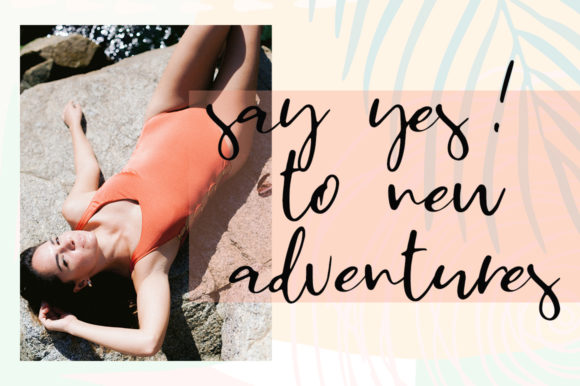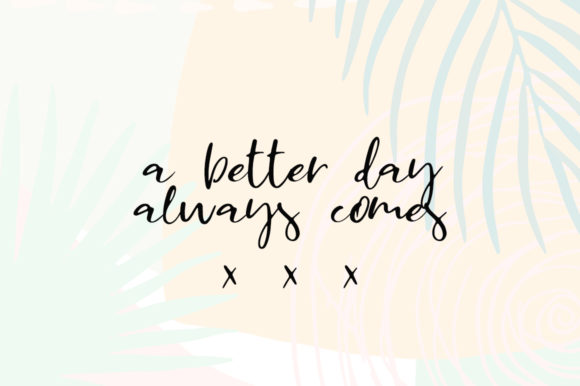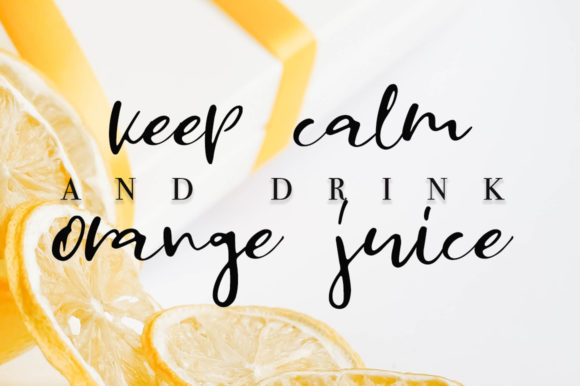
Introduction to Panamera Font
You know that moment when you’re brainstorming ideas for a new design project, and everything just clicks? The colors, the fonts, the overall aesthetic – it all comes together in a beautiful harmony. And then you stumble upon the perfect font to tie everything together. For many designers, that font is the Panamera Font.
With its sweet and charming script, the Panamera Font is an ideal choice for adding that authentic touch to your next design idea. Whether you’re working on a creative project or just need a high-quality font for a specific design, the Panamera Font is a valuable resource that can elevate your work to the next level.
As a free download, the Panamera Font is a fantastic addition to any designer’s toolkit. And with its transparent background, it’s easy to incorporate into any design without worrying about clutter or visual noise. In this article, we’ll explore the beauty of the Panamera Font and how it can help take your designs to new heights.
Panamera Font Key Features
- High-quality design resource ideal for creative projects, offering a unique and stylish aesthetic.
- Features a transparent background, allowing for seamless integration into any design, including logos, branding materials, and more.
- Designed with a modern and sleek look, the Panamera Font is perfect for use in digital and print media, including websites, business cards, and brochures.
- Perfect for use in creative projects, including graphic design, digital art, and typography-based designs, where a unique and stylish font is essential.
Honest Review: Panamera Font
I recently had the chance to work with the Panamera Font, and I must say it’s a solid addition to any designer’s toolkit. One of the standout features is its high-quality design, making it perfect for creative projects that demand a touch of sophistication.
Here are some of the things that worked well for me:
- ✨ The font is incredibly versatile and can be used for a wide range of applications, from headings to body text.
- ✨ The transparent background option makes it easy to overlay the font on top of images or other design elements.
However, there are a few limitations to be aware of:
- ⚠️ The font may not be suitable for very small text sizes, as it can become difficult to read.
- ⚠️ Some users may find the font a bit too ornate, which can detract from the overall design.
Overall, I’m impressed with the Panamera Font and would recommend it to designers looking for a high-quality design resource. While it may not be perfect, its strengths far outweigh its limitations, making it a valuable addition to any design project.
The Panamera Font is perfect for creative projects, such as graphic design, digital art, and typography. You can use it to create eye-catching logos, posters, and social media graphics.
To get the most out of the Panamera Font, use it on a transparent background to make it stand out. You can also experiment with different font sizes, colors, and styles to create a unique look.